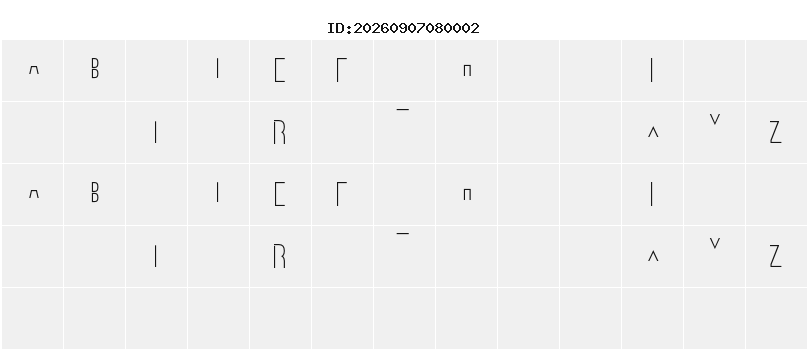
Ostrich Sans Stack Preview
• Font Name: Ostrich Sans Stack
• Designer: Tyler Finck
About Ostrich Sans Stack.ttf
Ostrich Sans Stack.ttf is a modern, elegant sans-serif font designed for ultimate readability and visual harmony. Perfect for branding, headlines, web design, and print materials.